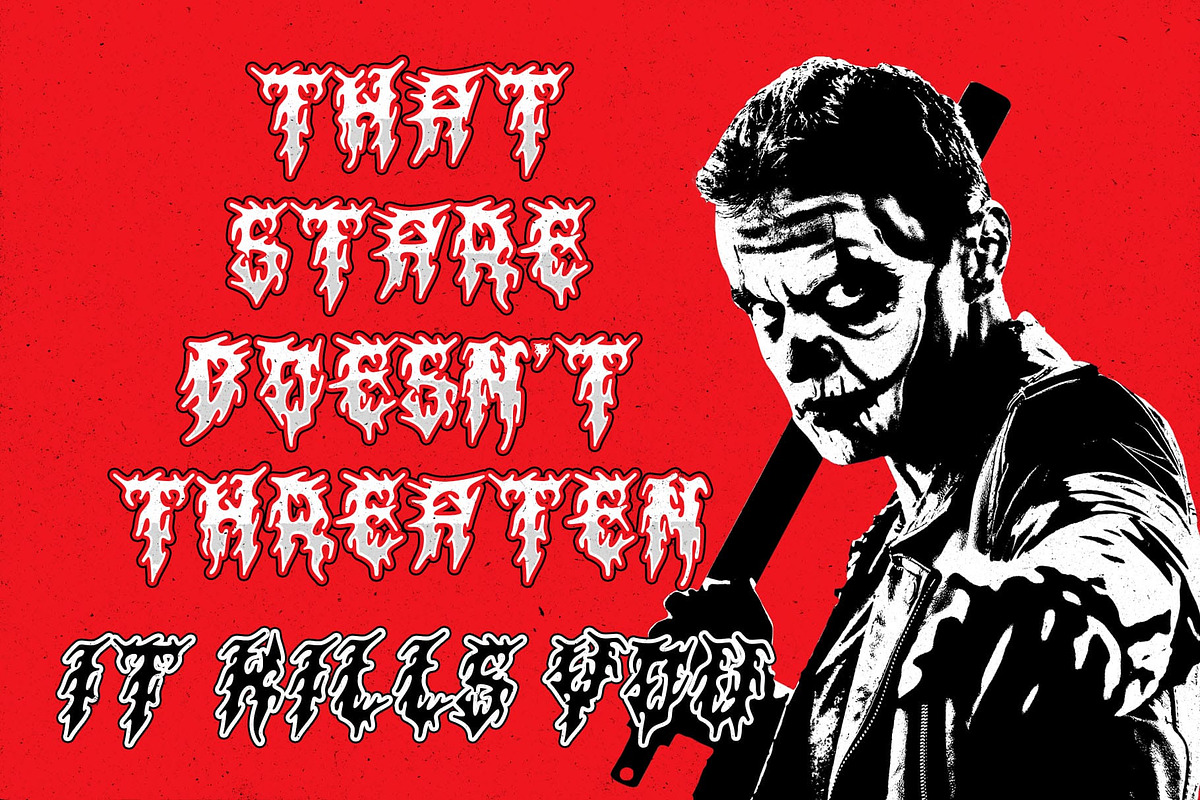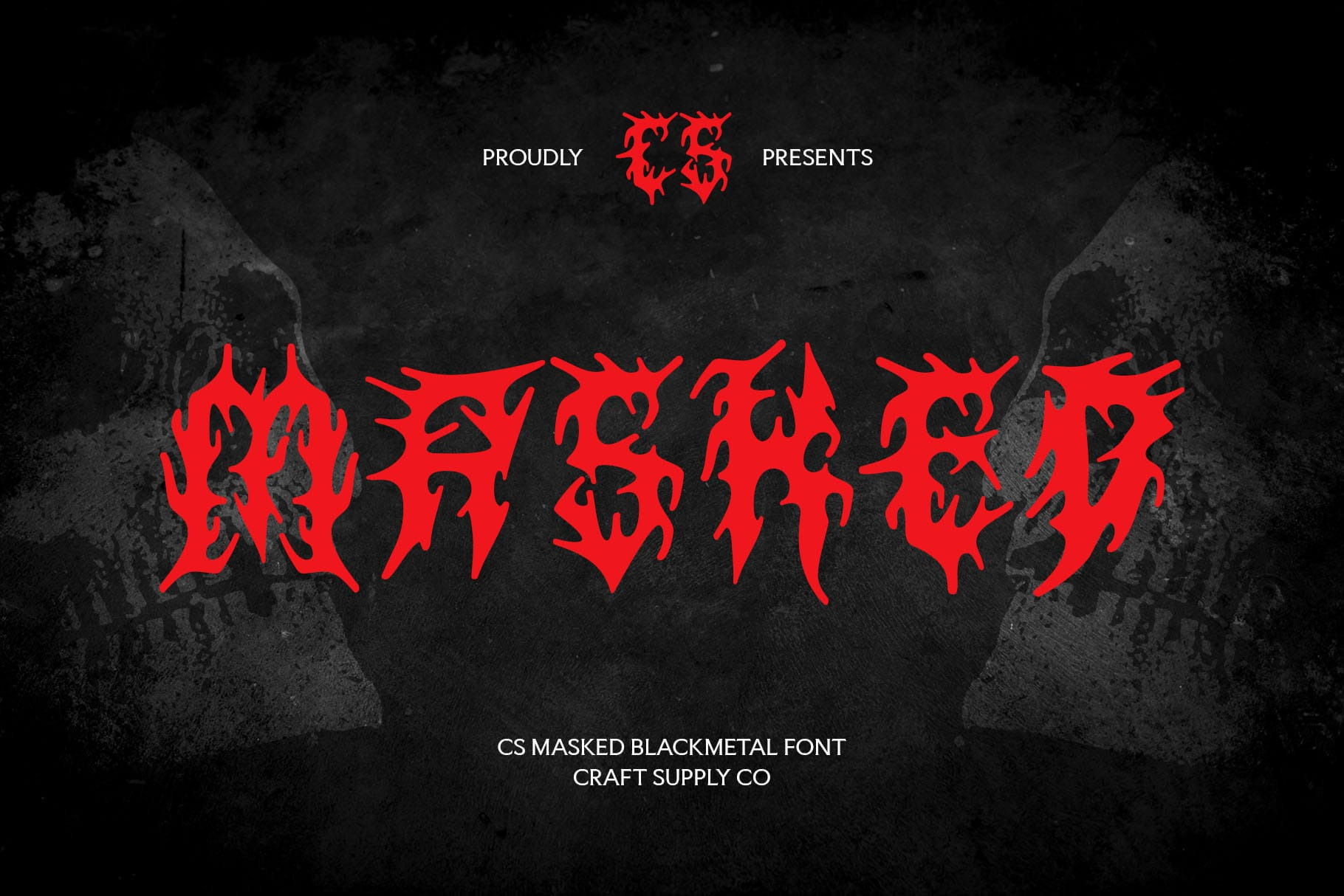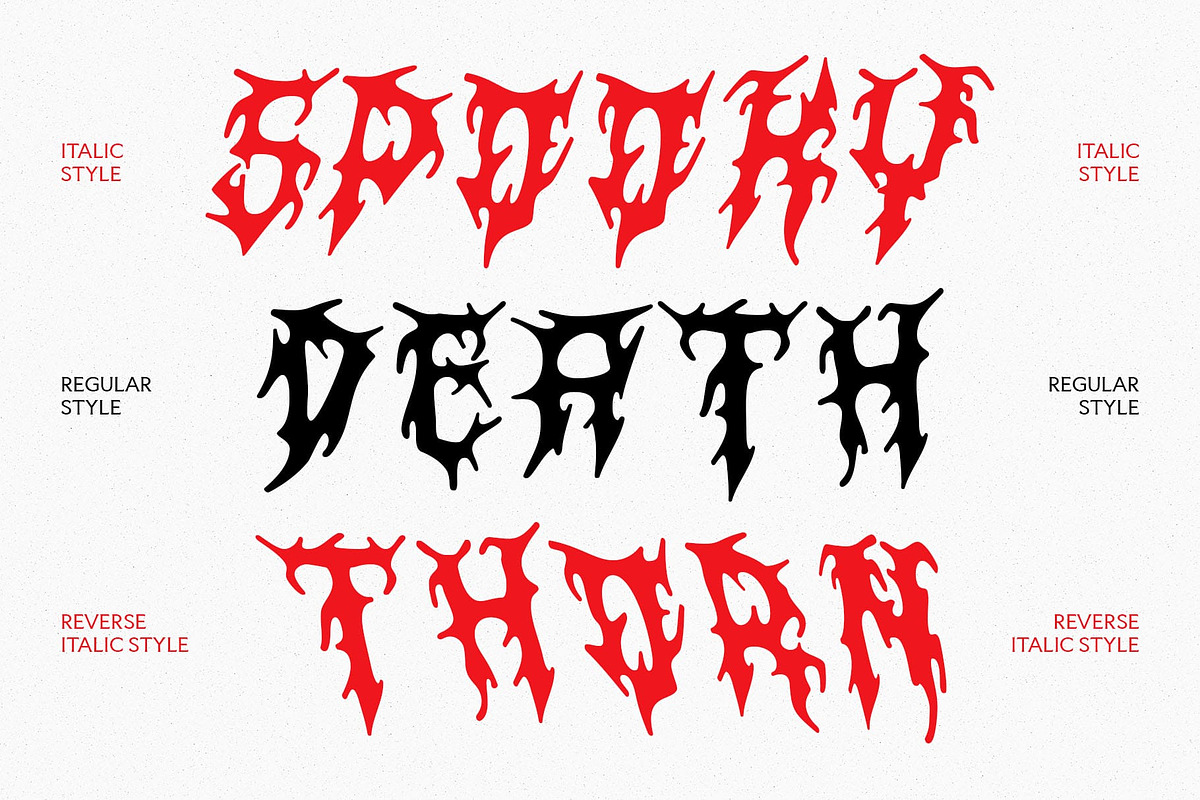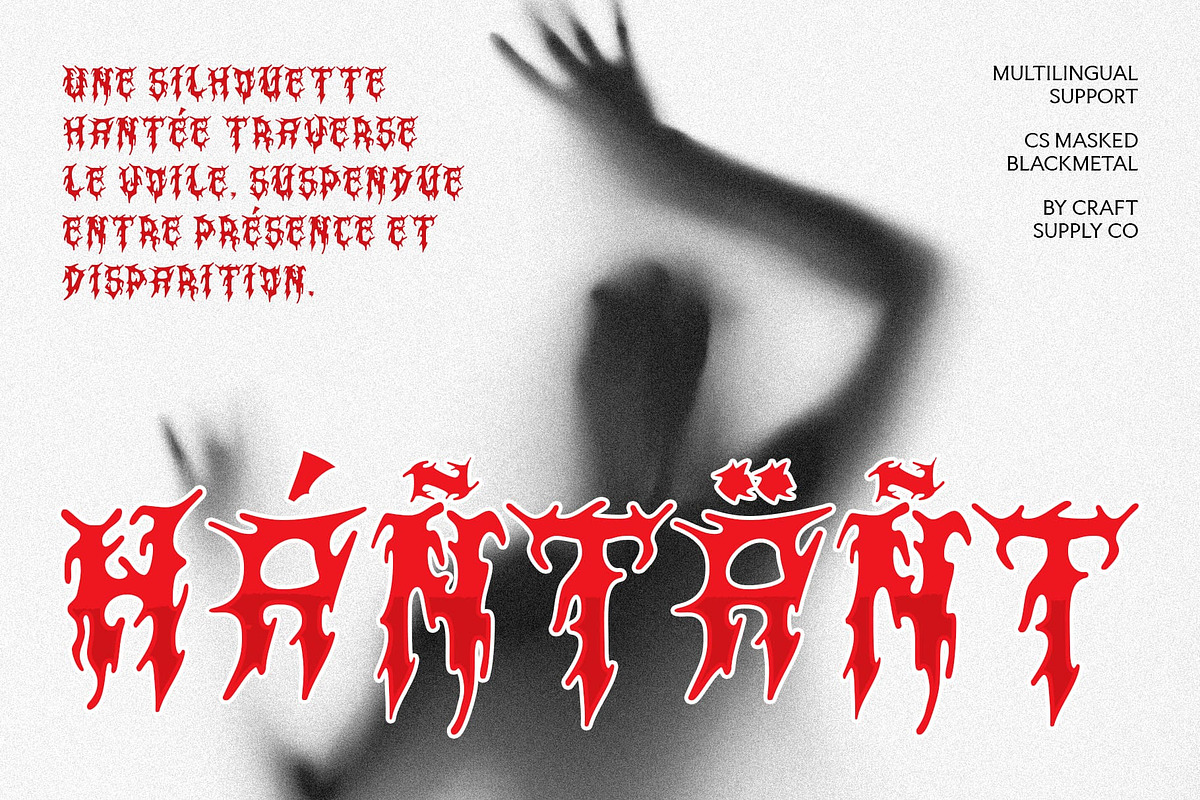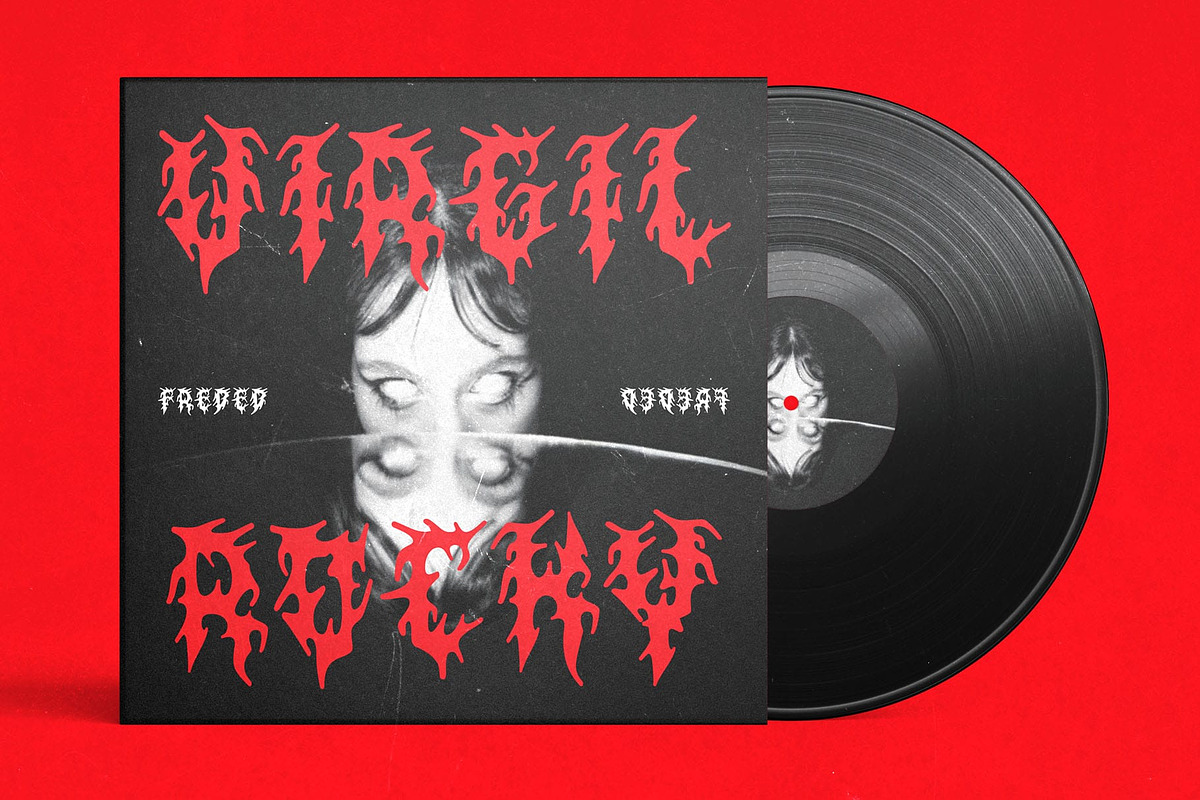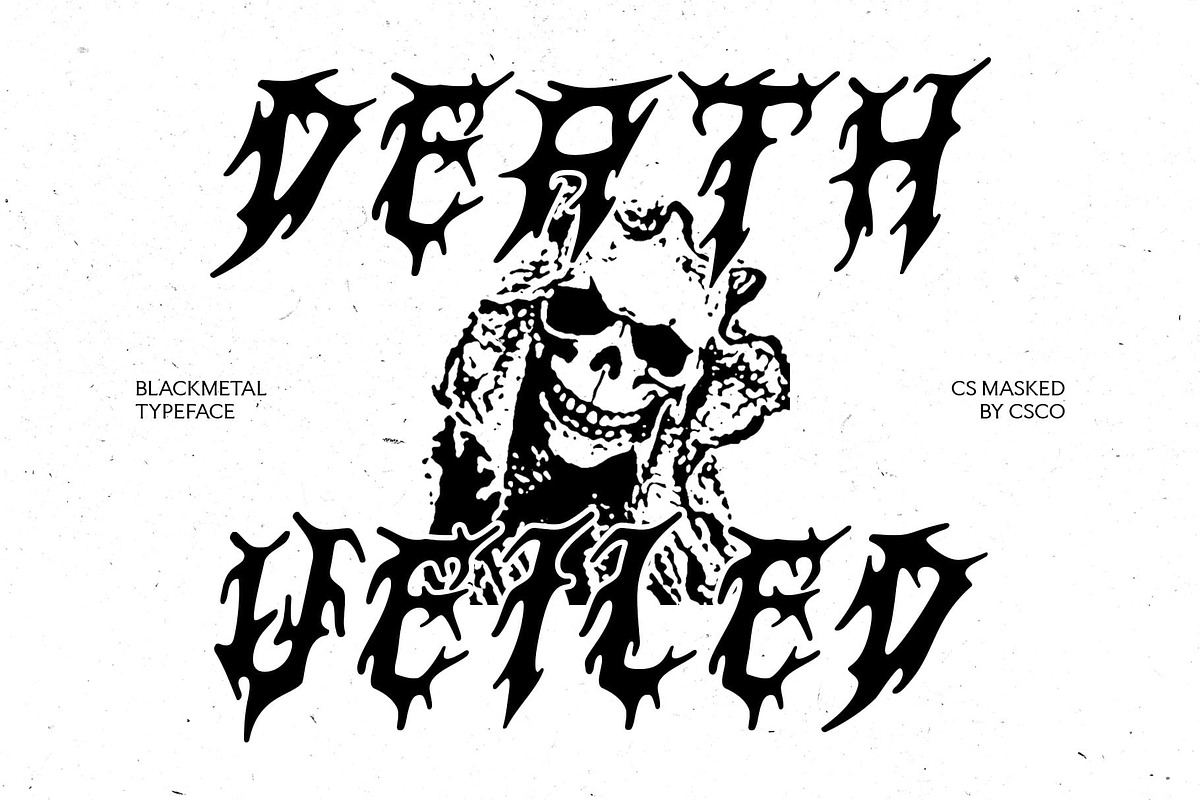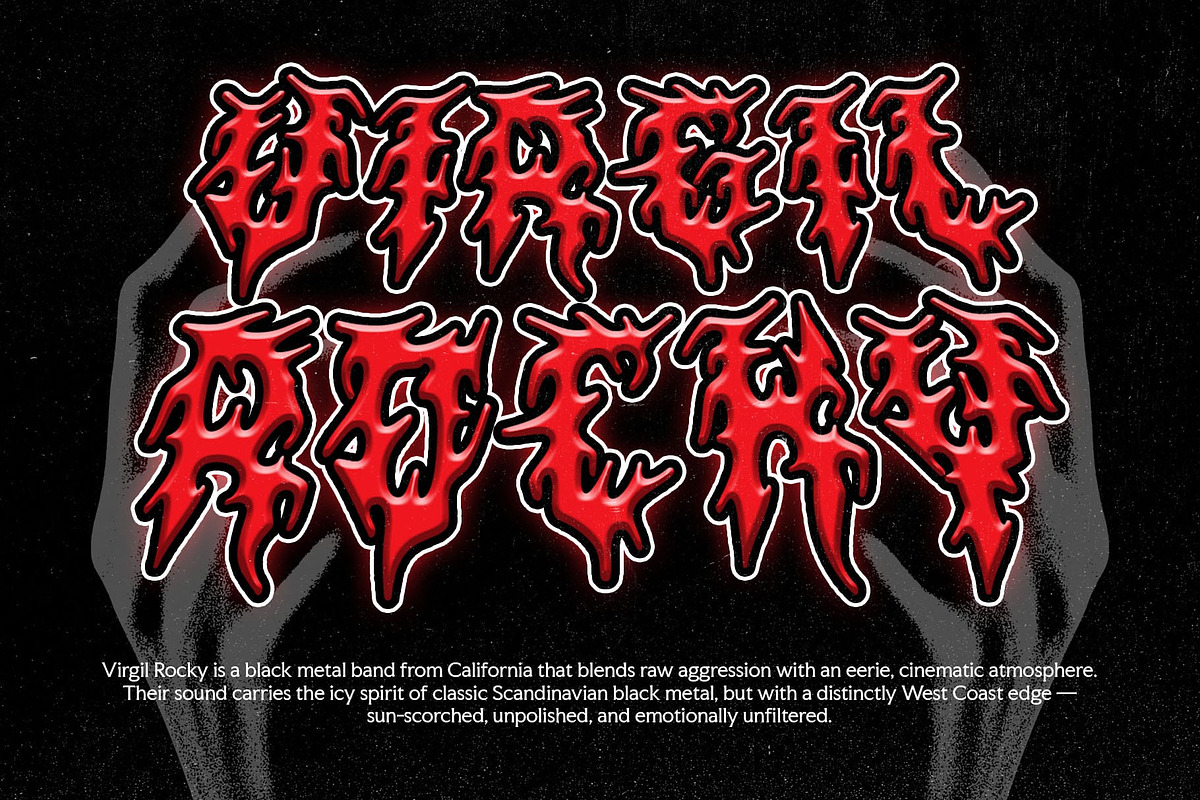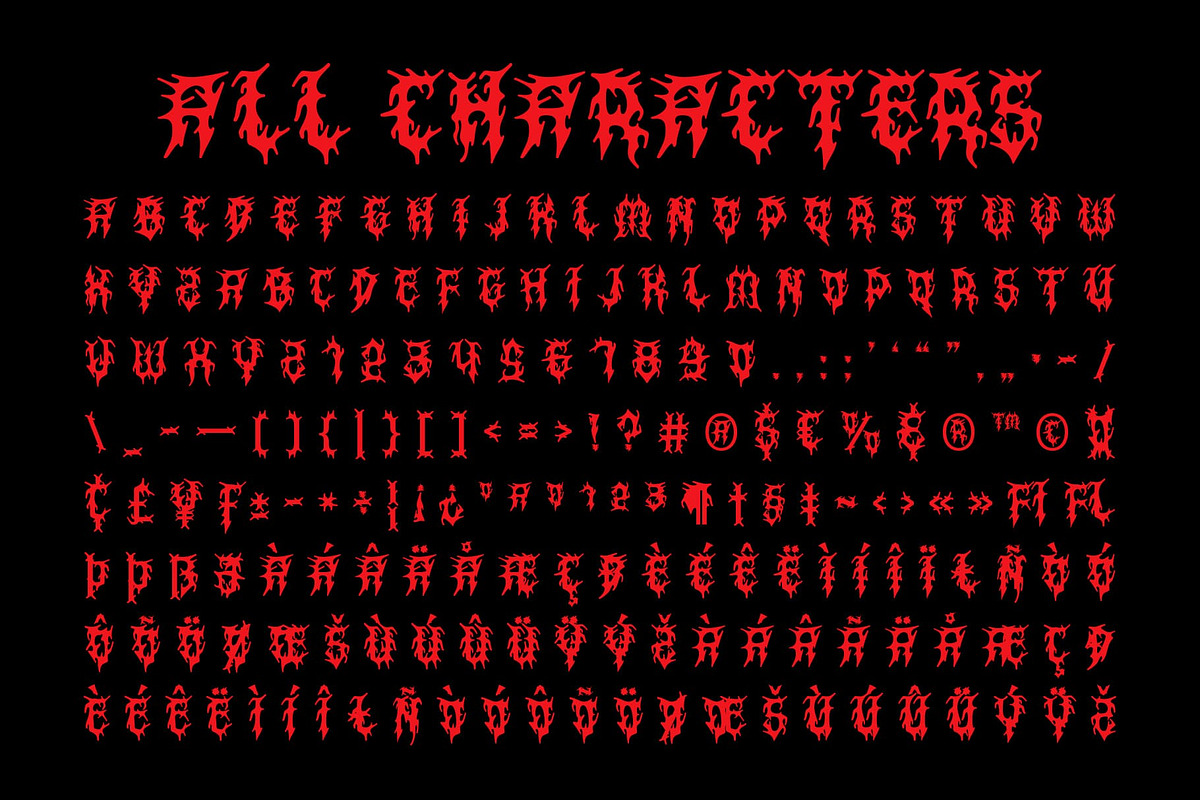
CS Masked – Black Metal Font
CS Masked – Dark Intensity with Chaotic Edge
Black Metal Font with Aggressive Presence This is a raw and aggressive black metal font designed to embody the darkness and intensity of extreme music. Its jagged spikes and chaotic strokes create a fierce, uncompromising look that demands attention and evokes a sense of power and rebellion.
Chaotic and Distinctive Letterforms Each character in this font is crafted with irregular, sharp edges and turbulent forms, giving the font a sense of movement and aggression. This chaotic aesthetic captures the raw energy of black metal culture, making every word feel alive with intensity.
Bold Expression for Extreme Design The aggressive design of this font ensures maximum visual impact. Its sharp, uncompromising forms are ideal for band logos, posters, album covers, and any edgy creative project where darkness and rebellion are central themes.
Perfect for Intense and Edgy Projects From music branding and promotional posters to alternative and underground designs, this font delivers a font that exudes extreme energy and visual aggression. It’s the ultimate choice for projects that demand a bold, dark, and unforgettable presence.